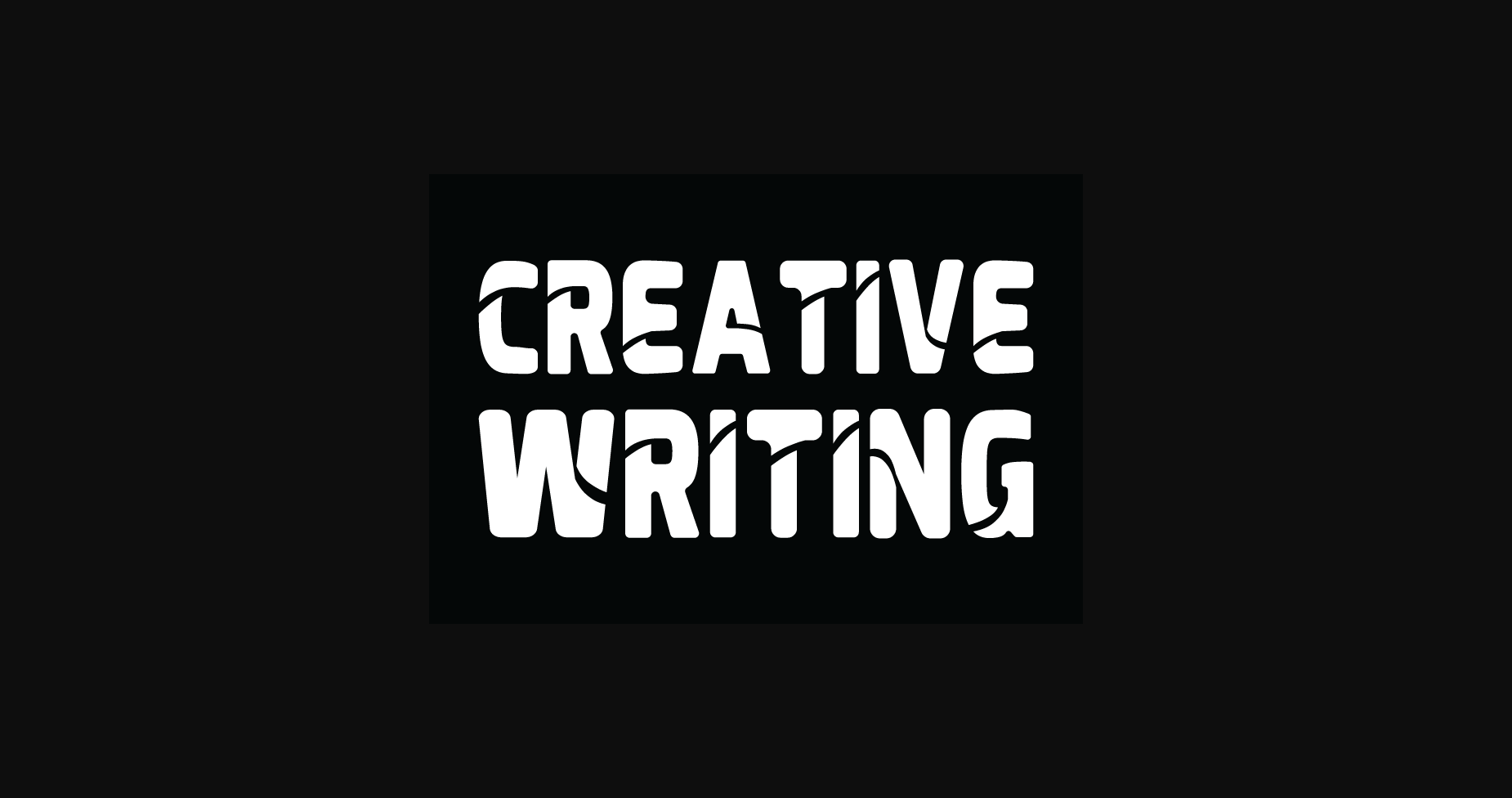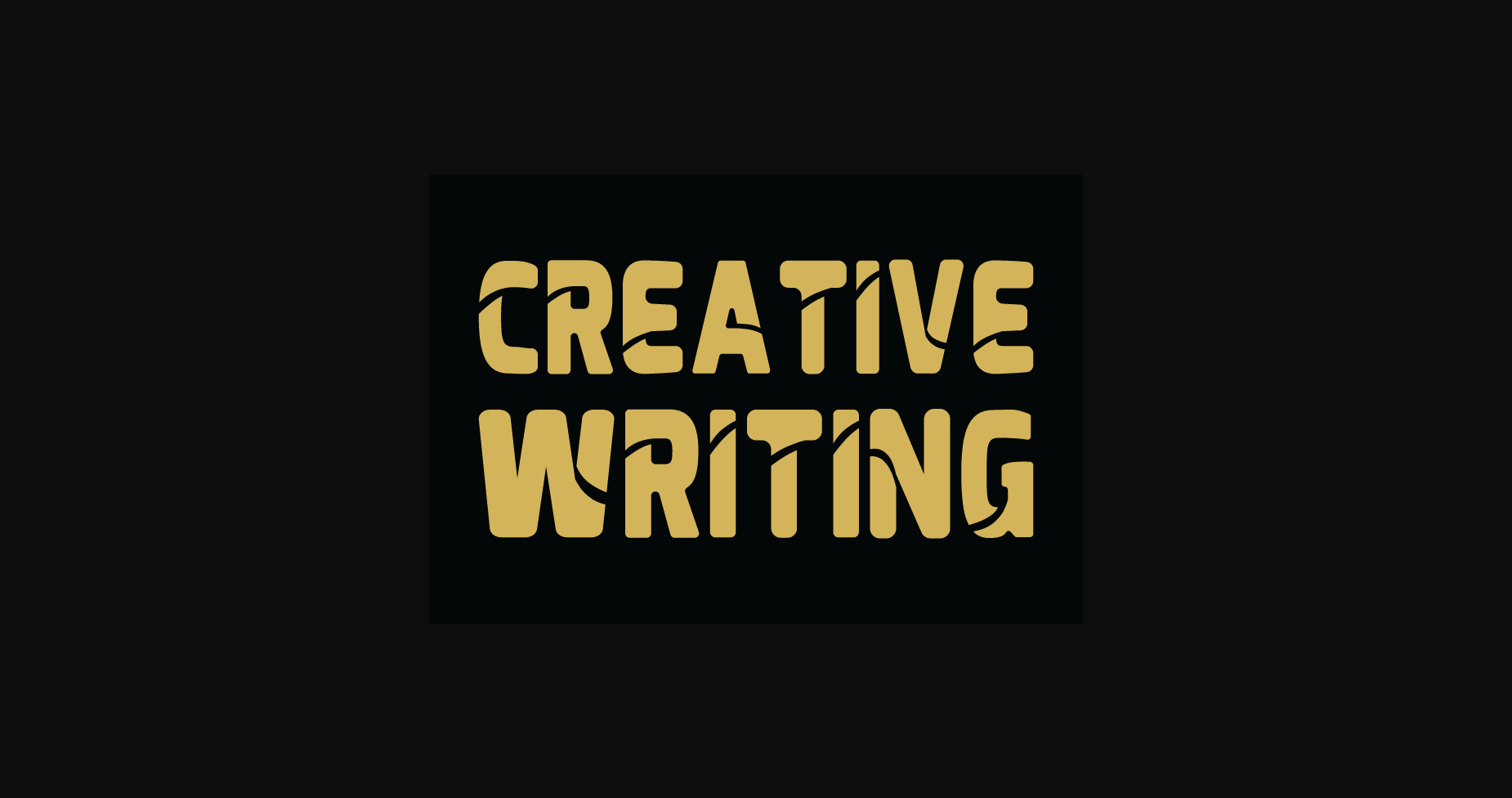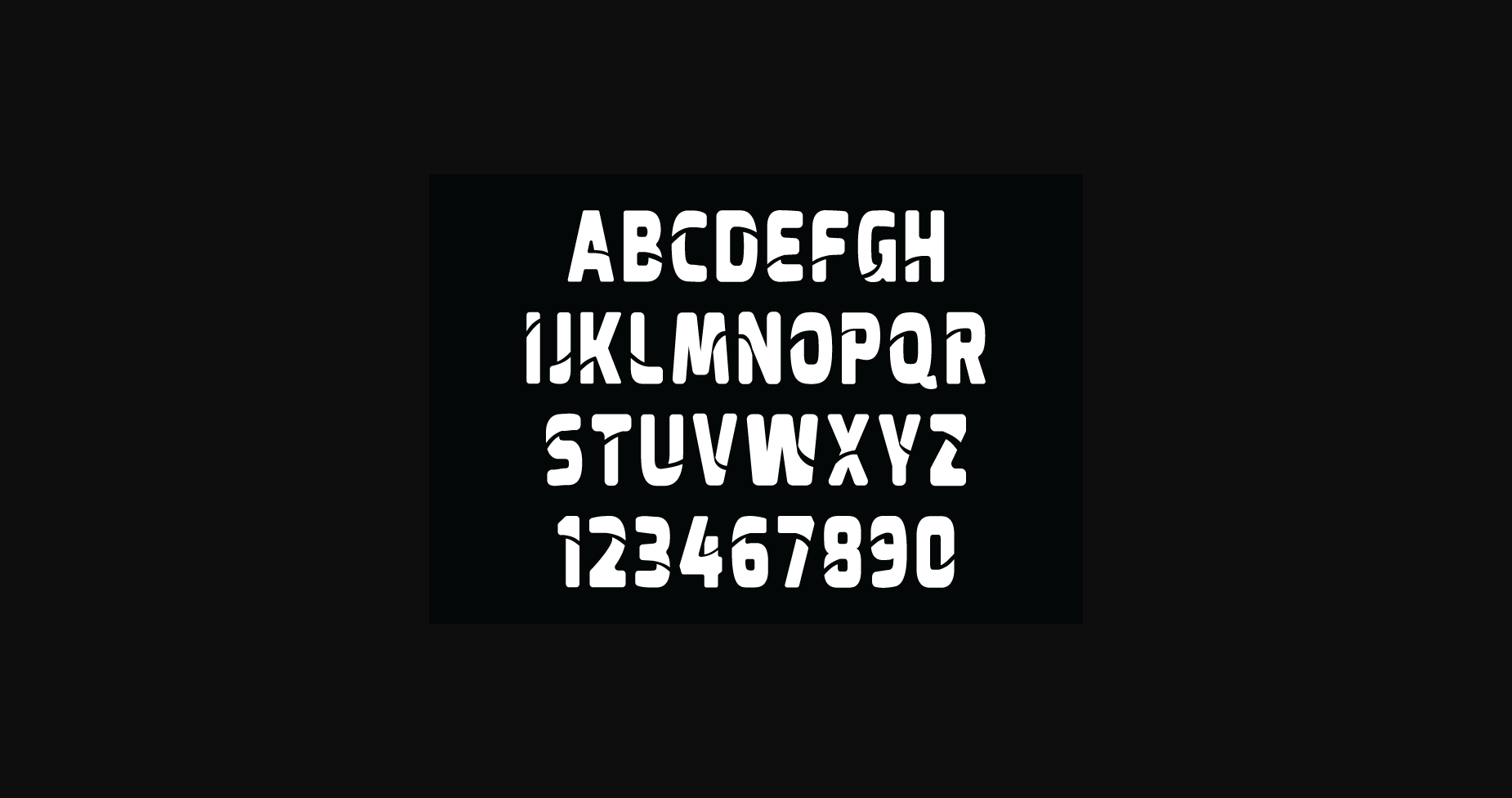
Creative Writing Font
About Creative Writing Font
Creative Writing is a cool and modern Sans Serif font. Add it confidently to your creative projects and notice how it makes them stand out from the crowd.